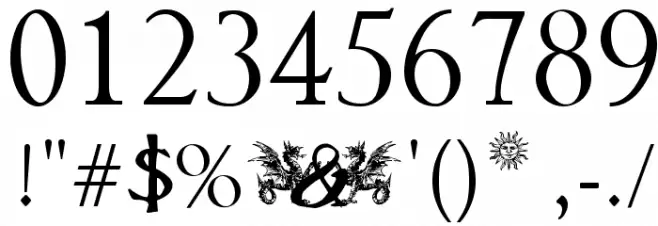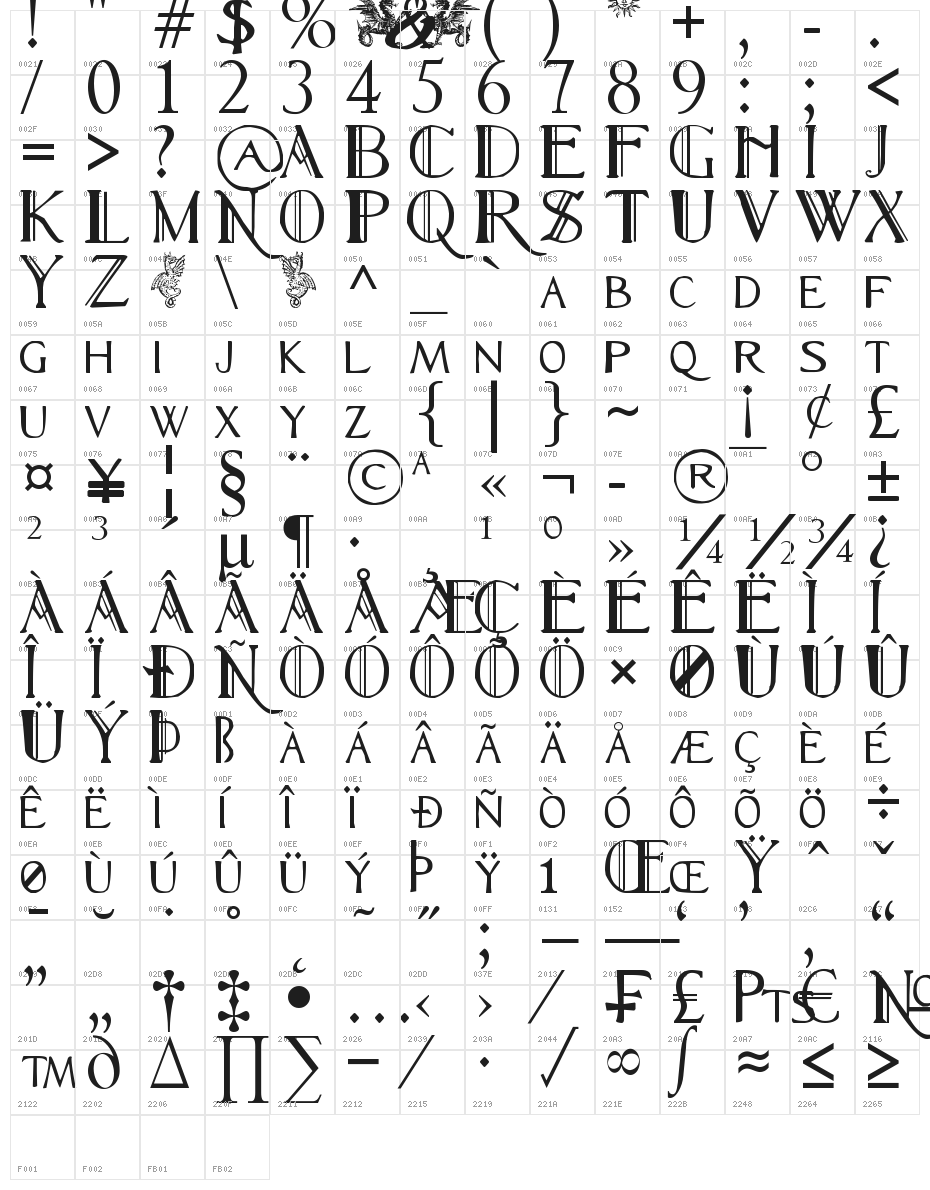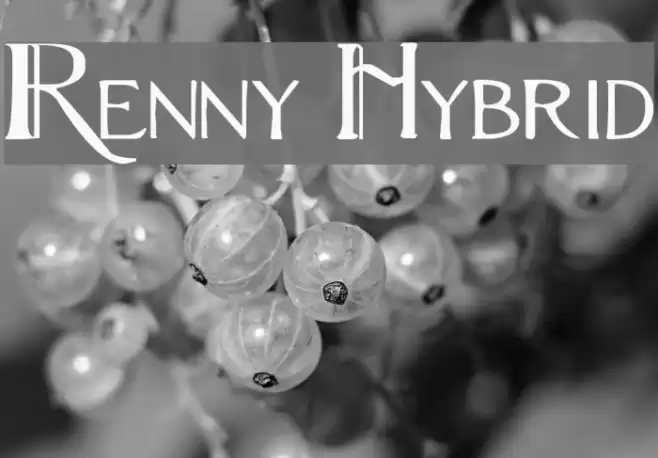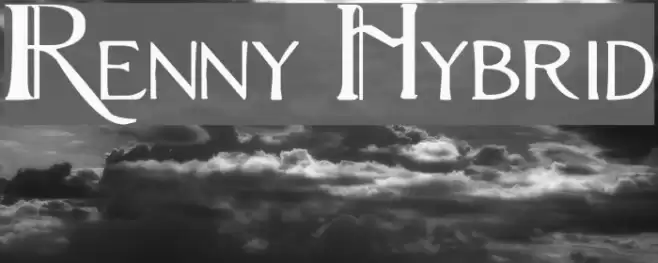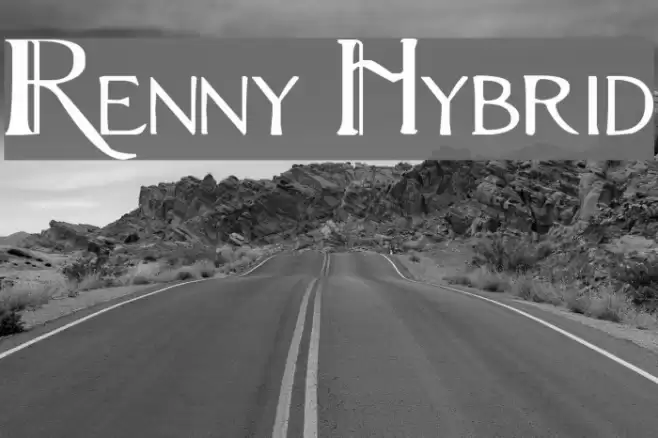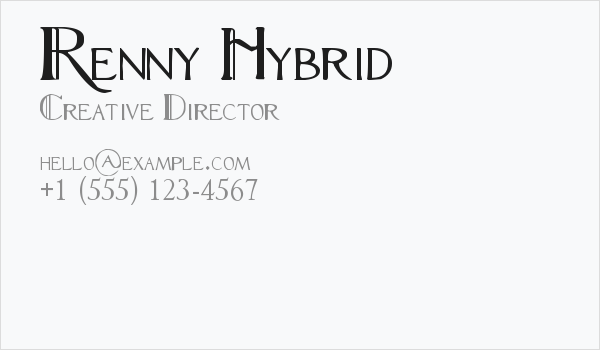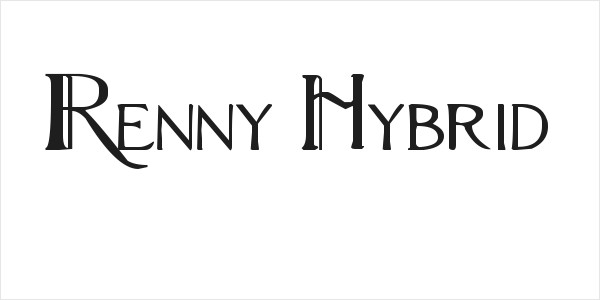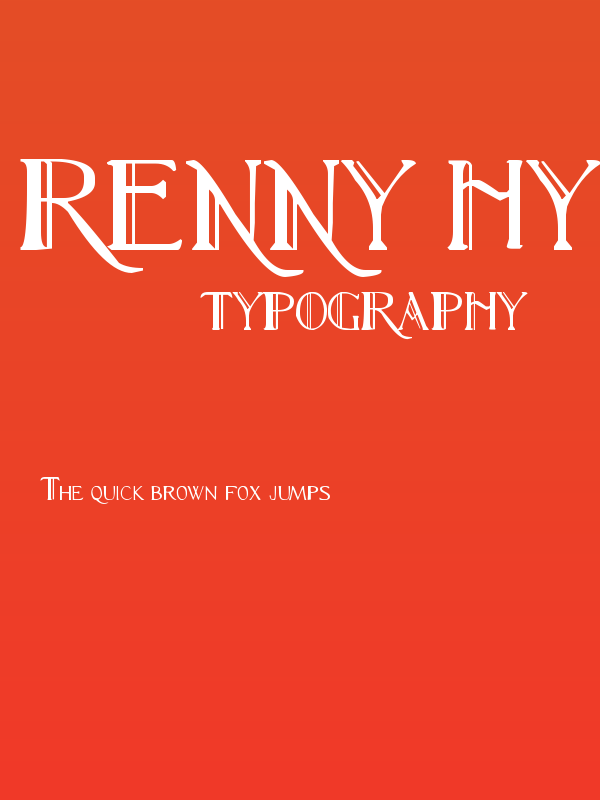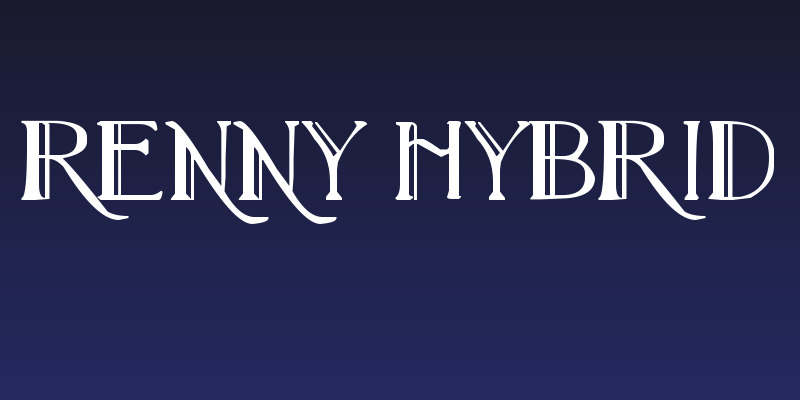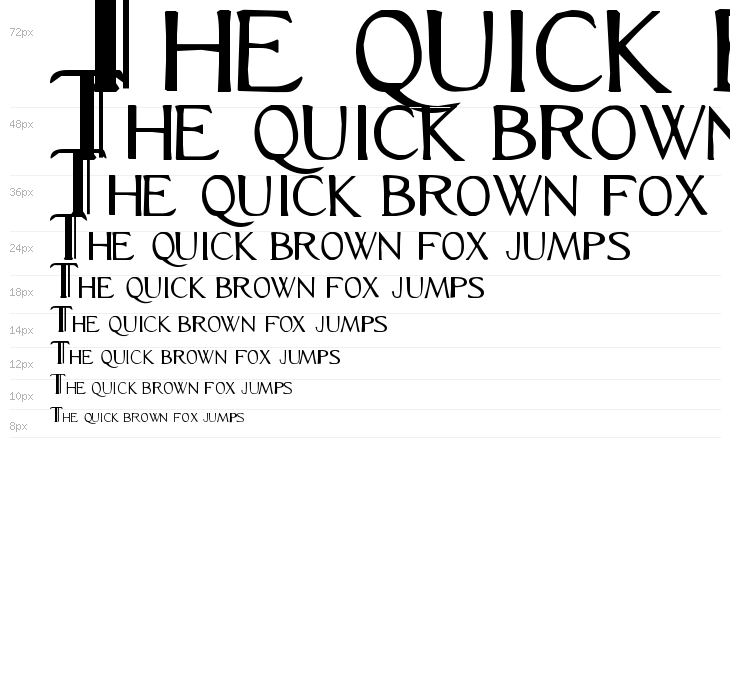
Renny Hybrid Font
Renny Hybrid Description
This font features a unique blend of classic and modern elements, with a decorative flair that makes it stand out. The uppercase letters have a distinct elegance, characterized by sharp serifs and varying line thicknesses that add a touch of sophistication. The lowercase letters maintain a more traditional serif style, providing a balanced contrast. The numerals are bold and clear, ensuring readability, while the special characters incorporate intricate designs that enhance the font's decorative appeal. Overall, this font combines traditional serif elements with modern design twists, making it versatile for various creative applications.
| Proposed Projects | Ideal for branding, invitations, book covers, and editorial design where a touch of elegance and uniqueness is desired. |